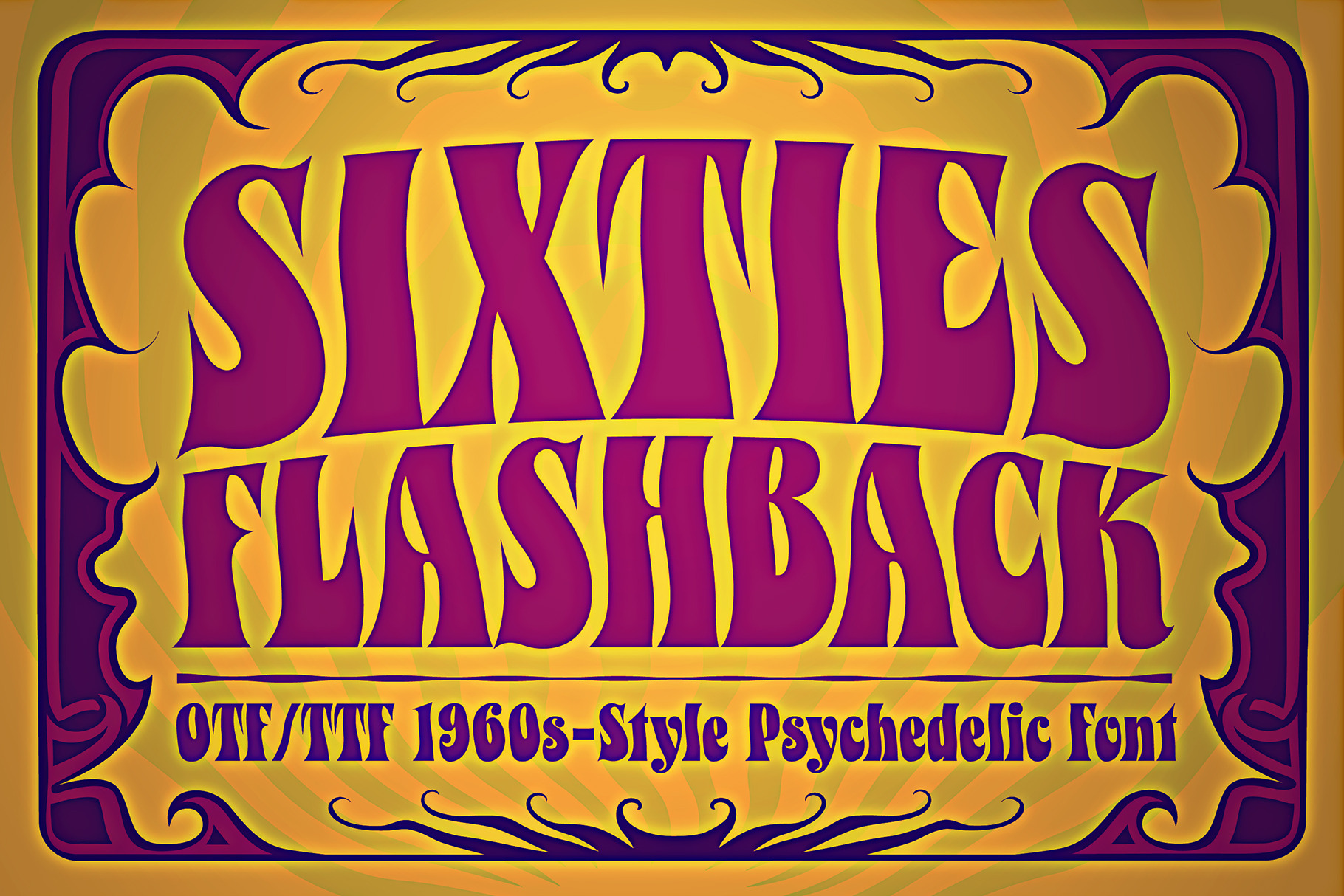
Sixties Flashback Psychedelic Font
SIXTIES FLASHBACK PSYCHEDELIC FONT
Here's a lettering style that just might be exactly on your wavelength. Add just the right dose of vintage freak-a-delia to your retro graphics with this original psychedelic-style design. Great for music posters, album graphics, book titles, etc. Evoke a warpy, wavy, whimsical vibe that harks back to the carefree 1960s or early 1970s era with Sixties Flashback; it's pure hippie, trippy fun!